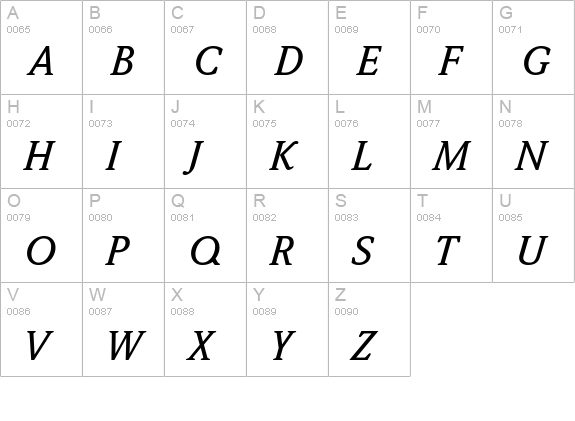
Quintessence Medium SSi Medium Italic is a balanced, medium-weight, italic variant in the Quintessence typeface family \xE2\x80\x94 well suited to sub-headlines, navigation, and balanced editorial work.
Quintessence Medium SSi Medium Italic font is a true epitome of elegance and sophistication. Its sleek and graceful strokes give any text a touch of refinement that is hard to ignore. The Medium Italic variant of this font adds a subtle slant to the letters, creating a sense of dynamic movement and modernity. This font is perfect for projects that require a balance between professionalism and creativity. Its medium weight strikes the right chord between boldness and subtlety, making it suitable for a wide range of design applications. Whether you are designing a logo, crafting a captivating headline, or creating a stylish invitation, Quintessence Medium SSi Medium Italic font will elevate your work to new heights. What sets this font apart is not just its impeccable design, but also its accessibility. Quintessence Medium SSi Medium Italic font is freely available to download at FontsMarket.com. This means that you can enjoy its exquisite beauty without any financial constraints. It's a font that not only enhances your designs but also respects your budget. So, why settle for ordinary when you can have the extraordinary? Download Quintessence Medium SSi Medium Italic font today from FontsMarket.com and discover a world of endless creative possibilities. Elevate your designs with this stunning font and leave a lasting impression on your audience.